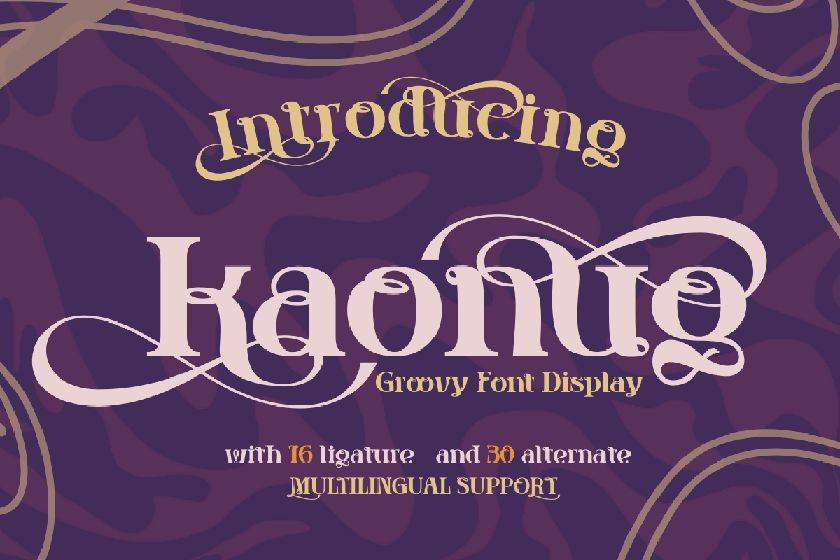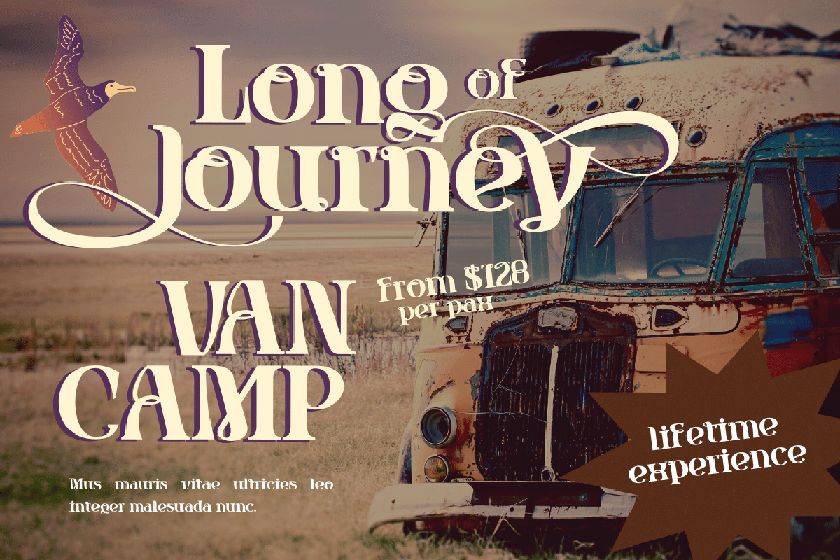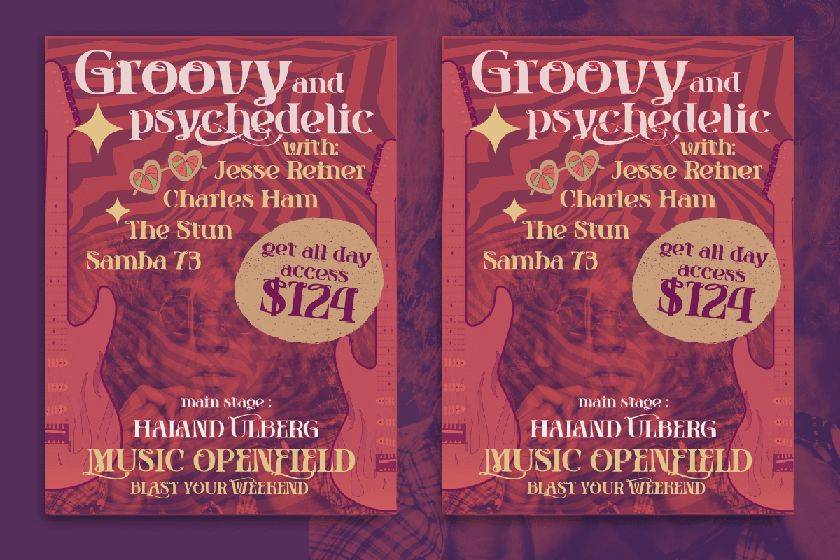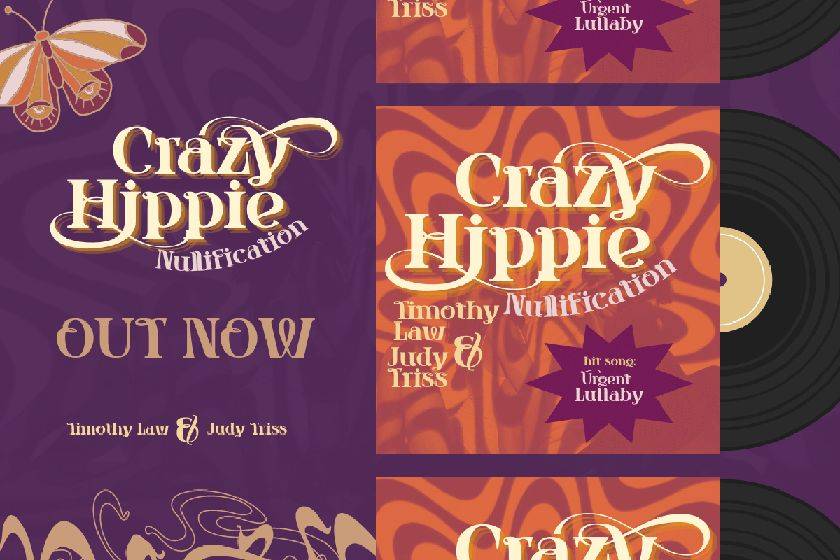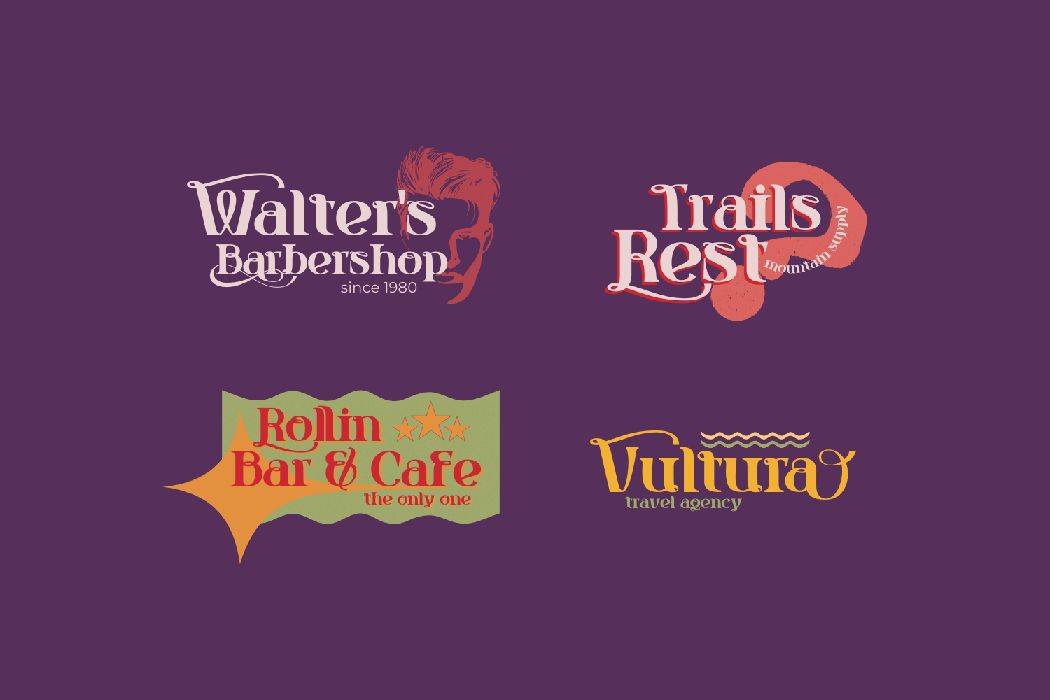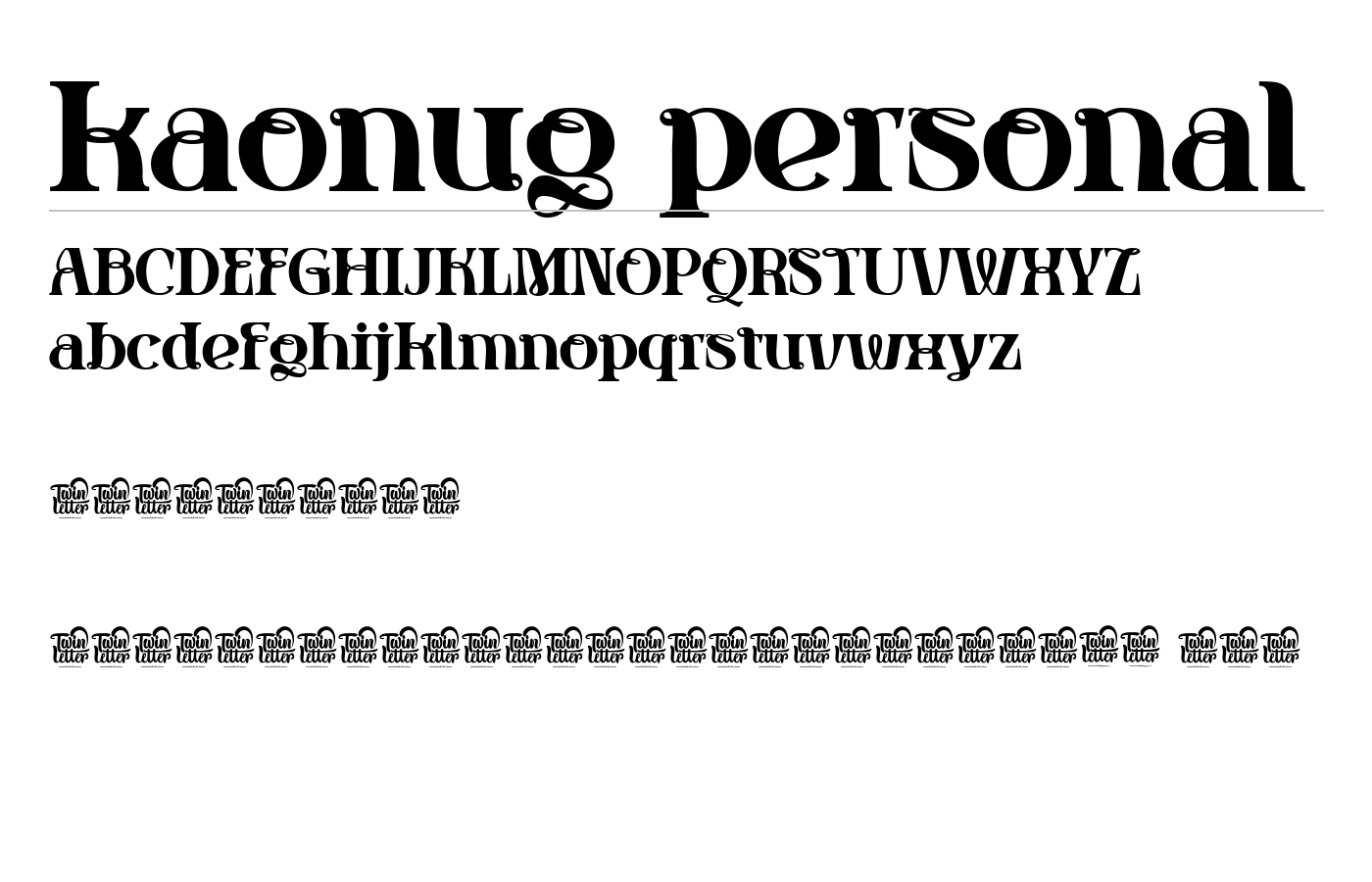
Kaonug is a bold serif font with a unique blend of classic and playful touches, featuring distinct high-contrast strokes and decorative terminals that add character and flair. Its medium x-height and slightly condensed shapes make it eye-catching and suitable for branding, headlines, and editorial use where a stylish, modern, yet vintage-inspired mood is desired. This font works wonderfully for fashion, packaging, and decorative purposes, delivering personality without sacrificing readability.
Kaonug Font
About Kaonug Font